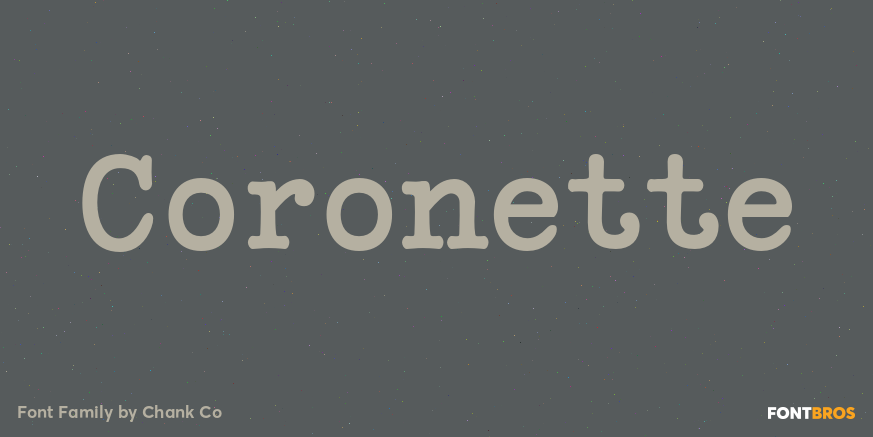
The exciting typewriter font, Coronette, combines old-fashioned charm with modern typographic sensibilities. Enjoy a new, multi-purpose workhorse font for all your labeling and page layout needs.